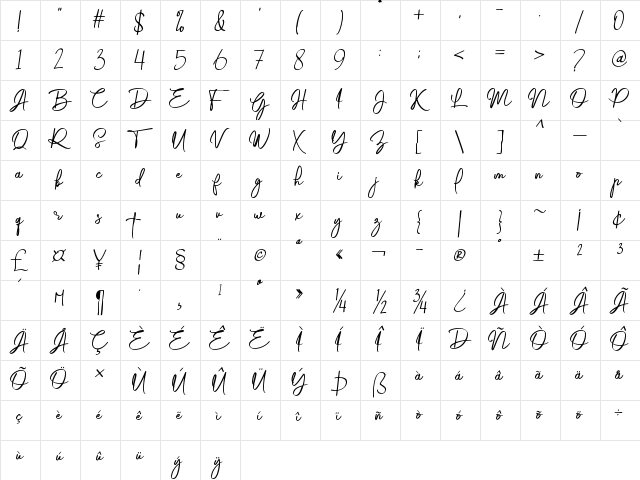
Gabrietha Demo Regular
| Foundry | Figuree Studio |
| Designer | Icep Anwar Fadhil |
Design Context for Gabrietha Demo Typeface
Gabrietha Demo is a composed and adaptable typeface that performs quietly and consistently across a wide range of design contexts.